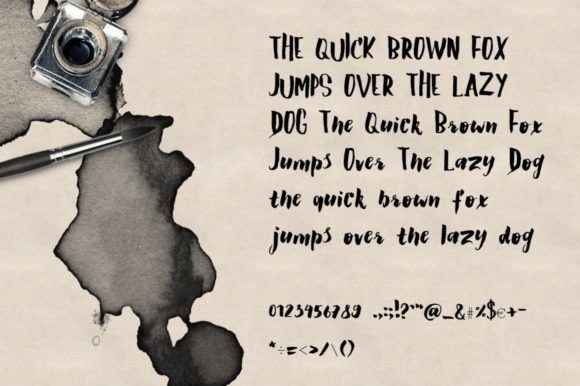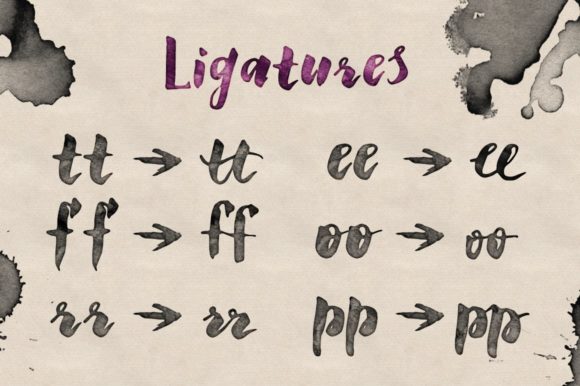
Claretta Font
db-ku.com - Script & Handwritten -- Claretta is a playful, cool and brushed handwritten font. It is defined by smooth curves and is perfect for fashion branding or editorial designs. Add it confidently to your projects, and you will love the results.